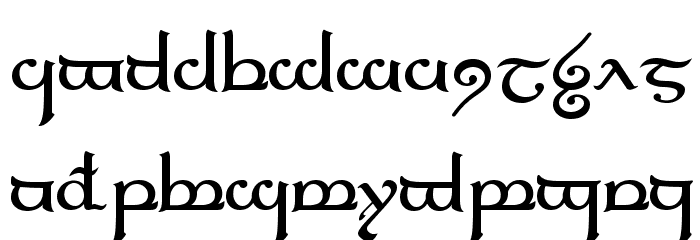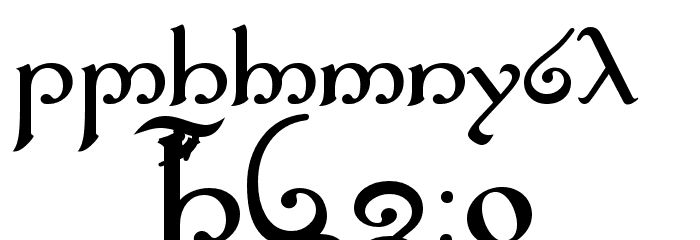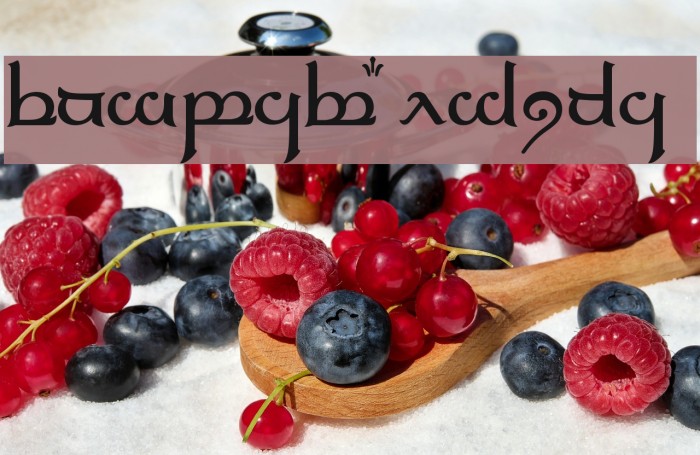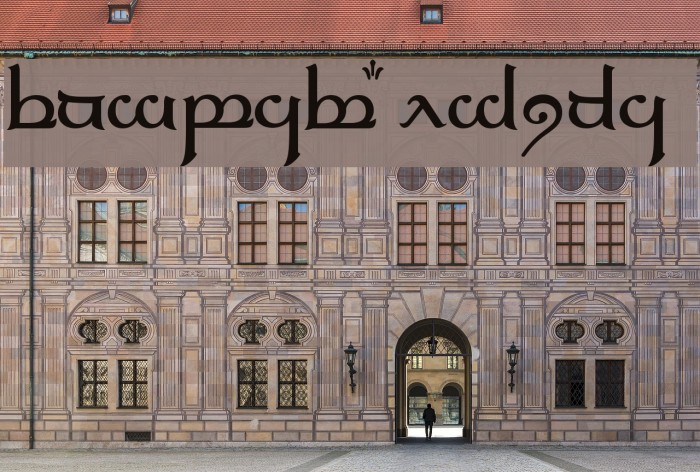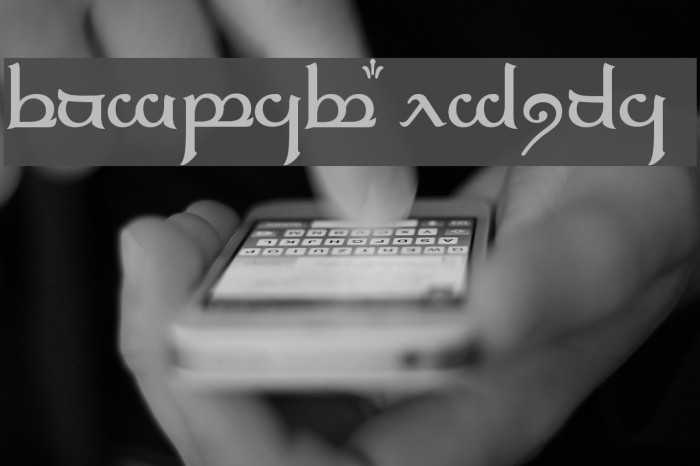
Tengwar Elfica Font
This font is a decorative script inspired by the fictional Elvish writing systems from fantasy literature. It features intricate, flowing lines and elaborate curves, giving it an ornate and mystical appearance. The characters are highly stylized, with unique shapes that resemble ancient calligraphy. The font includes a variety of symbols and characters that enhance its fantasy theme, making it ideal for creative projects that require a touch of magic and mystery. Its design is both elegant and complex, capturing the essence of an otherworldly script.
A decorative, fantasy-inspired script with intricate, flowing lines and ornate curves.
- Proposed Projects: Ideal for fantasy-themed projects, book covers, game design, and decorative art pieces.
- Use Case: Logos, Decorative art, Fantasy-themed projects